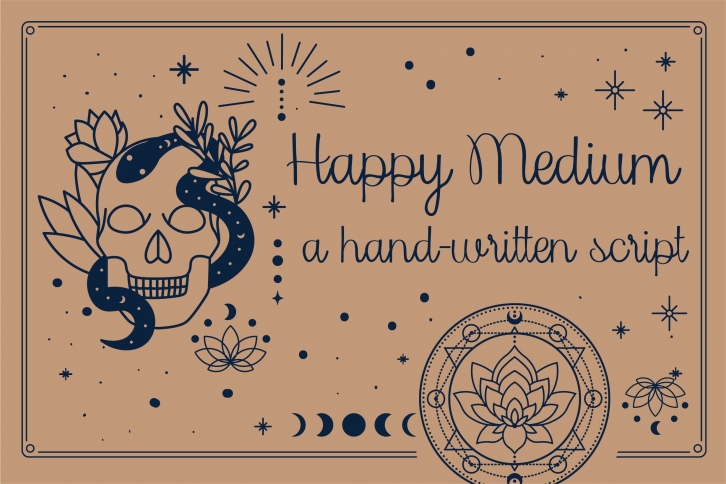
Happy Medium is a quirky handwritten font. Made by handwriting instantly brings out the natural characteristics of your project. This font is perfect for websites, svg designs, home decor, branding, blogs, logos, invitations, and more. This hand-written script is a very traditional cursive.